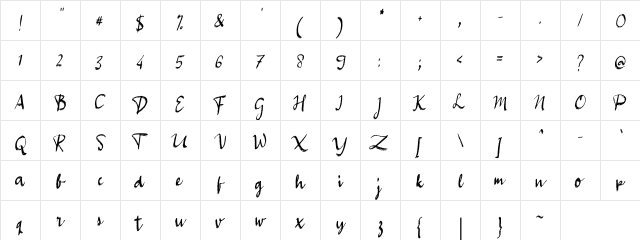
a Aneka Satwa Regular
Regular ·  Wahyu Eka Prasetya ·
DesignerWahyu Eka Prasetya
Design Context for a Aneka Satwa Typeface
a Aneka Satwa is a composed and adaptable typeface that performs quietly and consistently across a wide range of design contexts.